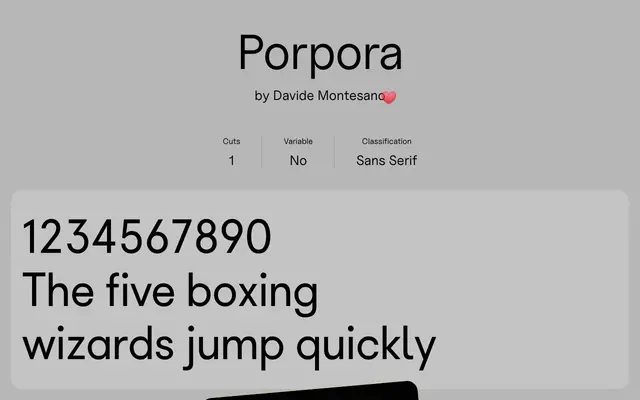
Porpora
A single-cut sans-serif by Davide Montesano, released under the SIL Open Font Licence for free commercial and personal use.
A sans-serif typeface by Davide Montesano, available in one cut and distributed freely under the SIL Open Font Licence 1.1. The licence permits commercial use, modification and redistribution with conditions. Little additional detail is available on the page beyond the classification and licensing terms.
Listed under Sans Serif by the foundry; with limited detail on the page, a grotesque subcategory is inferred from the name and its grouping alongside other grotesque-style sans-serifs on the site.